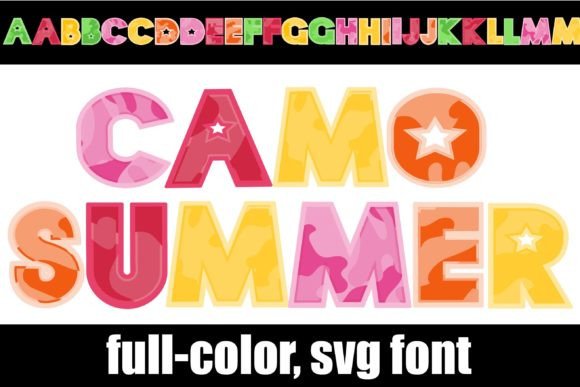
Discover the Fun and Playful Camo Summer Font
I’ll never forget the summer I spent countless hours designing a camping-themed party invitation. I was determined to create the perfect blend of outdoorsy and festive, but something was missing – a font that captured the essence of summer fun. That’s when I stumbled upon the Camo Summer Font, a full-color font that features a mix of summer colors on camouflaged lettering. It was love at first sight! 💕
- ✨ The unique blend of camouflage patterns and summer colors adds a touch of personality to any design.
- 💻 The font’s vector-based design ensures that it can be scaled to any size without losing quality.
- 🎨 The full range of colors and styles offers endless creative possibilities.
While the Camo Summer Font is an amazing addition to any design toolkit, there are a few things to keep in mind: 🤔
The Camo Summer Font was inspired by the great outdoors and the joy of summer. Imagine a designer who spent their childhood summers camping in the woods, surrounded by the sights and sounds of nature. They wanted to capture the essence of those carefree summer days in a font that would bring a smile to anyone’s face.